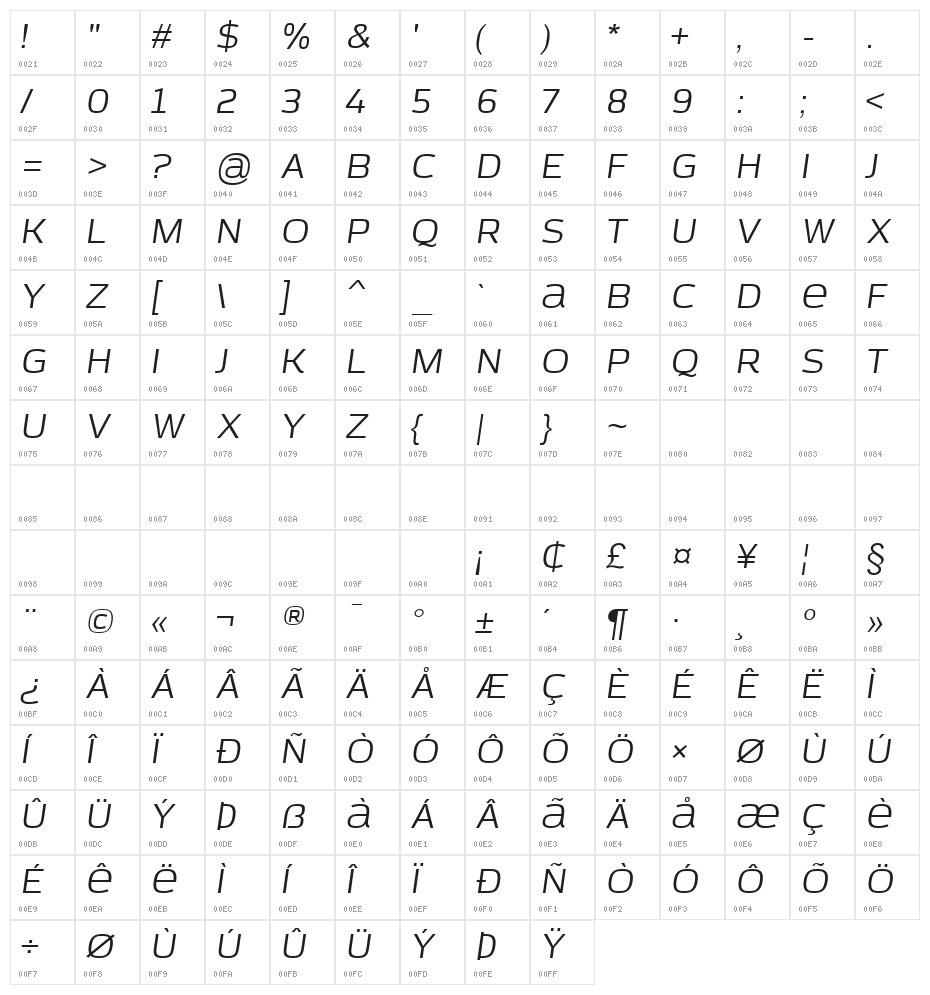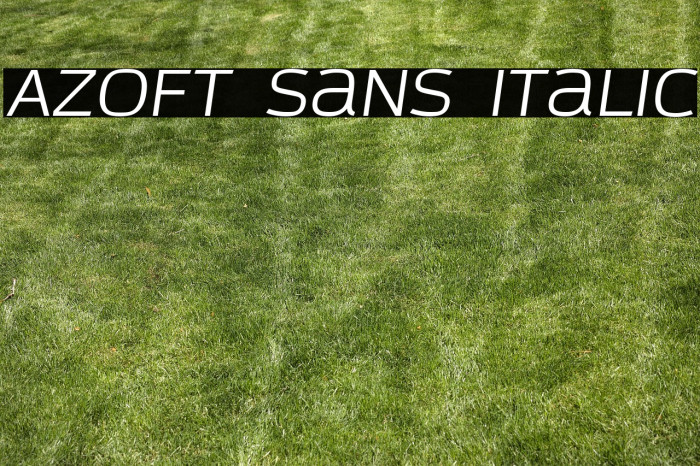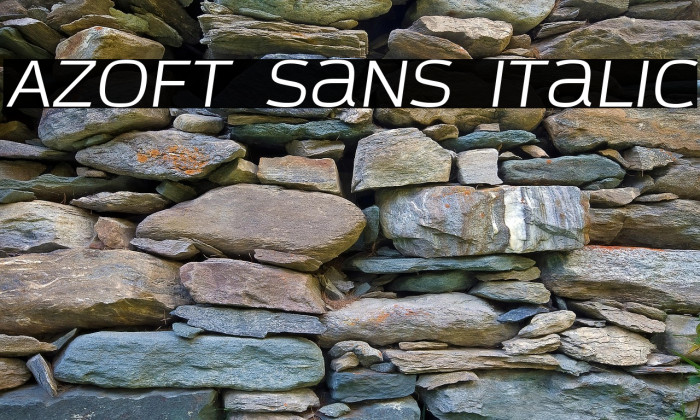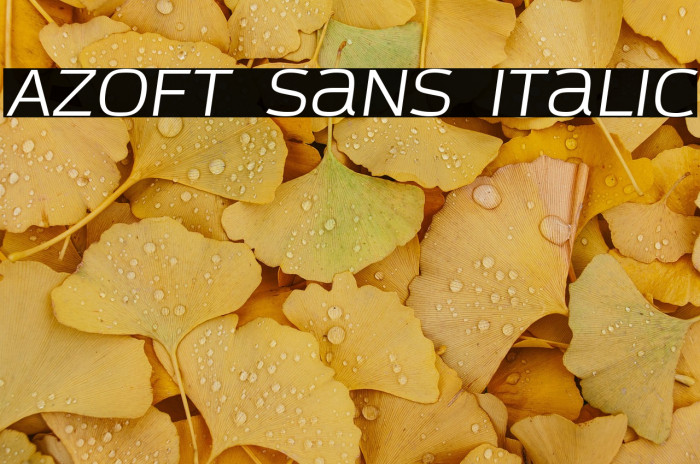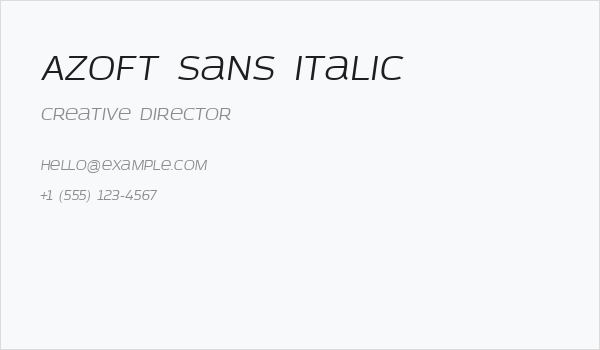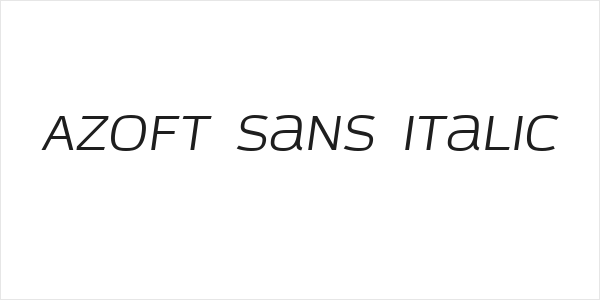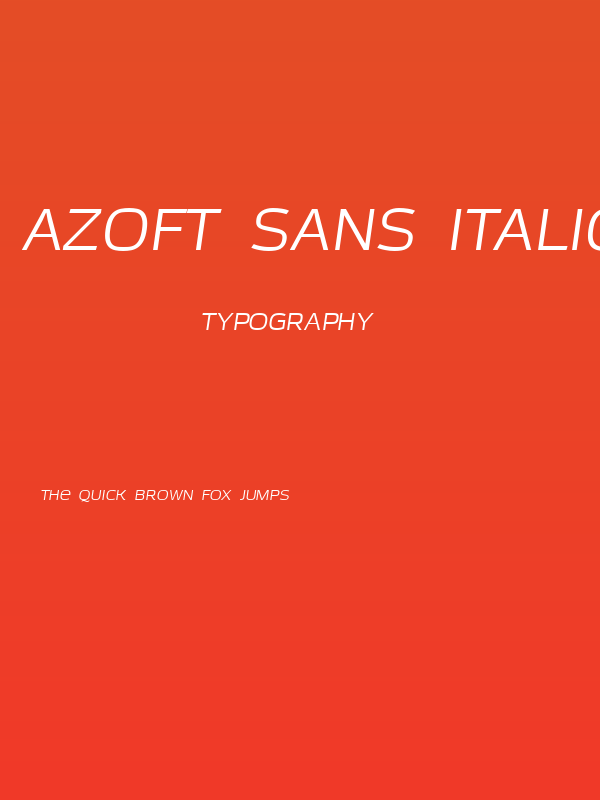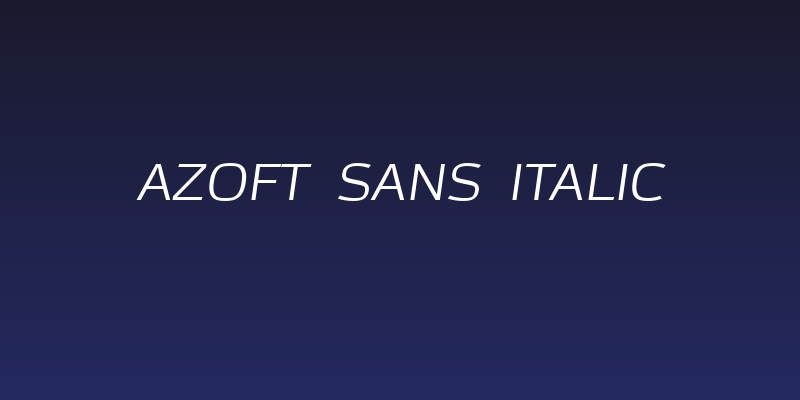
Azoft Sans Italic Font
Azoft Sans Italic Description
This font features a sleek and modern sans-serif design with a distinct italic slant, giving it a dynamic and forward-leaning appearance. The characters are clean and streamlined, with smooth curves and sharp edges that enhance readability while maintaining a stylish look. The uppercase and lowercase letters are well-proportioned, and the numerals are clear and consistent in style. Special characters are included, maintaining the font's cohesive aesthetic. The overall design is versatile, suitable for a variety of applications where a contemporary and professional look is desired.
Proposed ProjectsIdeal for branding, advertising, digital media, and editorial design projects.